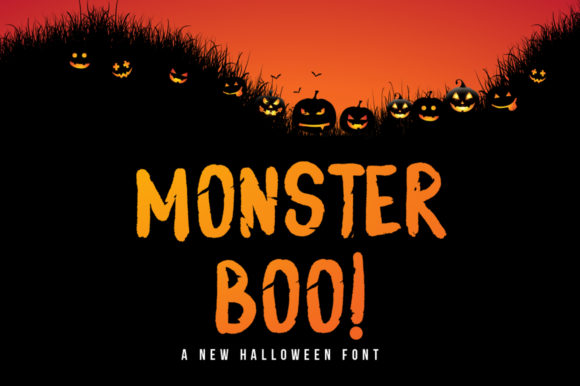
Unleash your creativity with Monster Boo Font, the modern, eye-catching display font designed to transform your designs and leave a lasting impression. Its bold and distinctive characters exude a timeless style, adding a touch of sophistication to any project.
Dive into a world of boundless possibilities with Monster Boo. This rough display font is intentionally crafted for maximum impact. Create stunning wall designs that evoke emotions and capture attention. Design logos that stand out from the crowd and leave an unforgettable mark. Craft stationery that reflects your unique personality. Transform product labels into works of art that attract customers like moths to a flame. Enhance your photography with Monster Boo's bold presence. The possibilities are endless.
Monster Boo is more than just a font; it's a statement. It's a declaration of your individuality and a testament to your impeccable taste. Embrace Monster Boo's creative energy and watch as your designs flourish. It's the perfect choice for those who dare to be different, who crave originality, and who strive for excellence.
Experience the Monster Boo difference. Say goodbye to ordinary fonts that blend into the background. With Monster Boo, your designs will command attention, sparking conversations and leaving a lasting impression. It's the font that elevates your creativity to new heights, turning your ideas into stunning realities.
Don't just take our word for it. Join the growing community of designers, artists, and creatives who have embraced Monster Boo's captivating charm. Witness the transformation as ordinary projects evolve into masterpieces. Unleash your imagination and redefine your creative boundaries with Monster Boo.